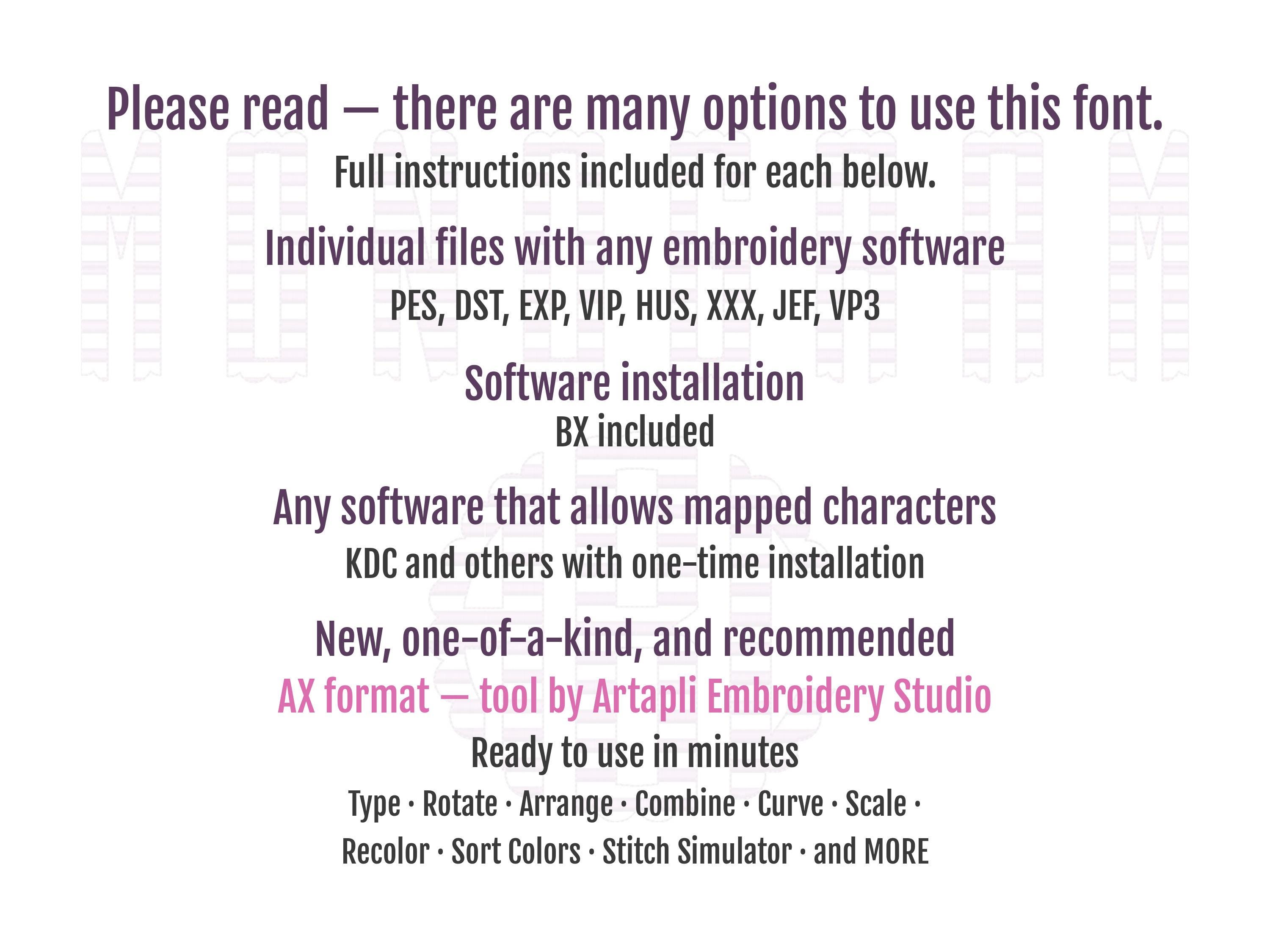
Scalloped striped Circle Monogram FONT machine embroidery designs, classic three letter round monogram letters in many sizes BX included
The striped effect is a part of the design.
Letters:
26 Left
26 Center
26 Right
Monogram SIZES in height
8.5 inches